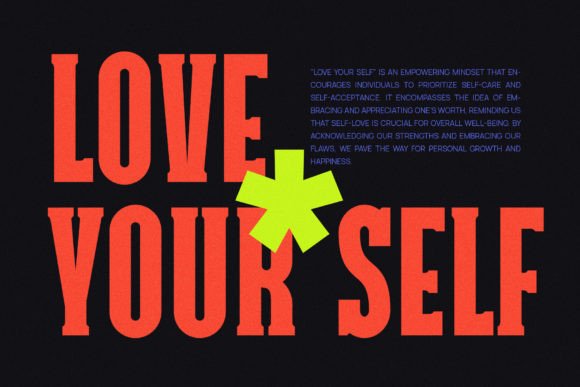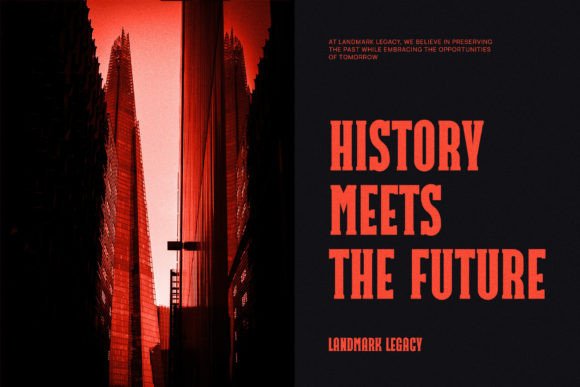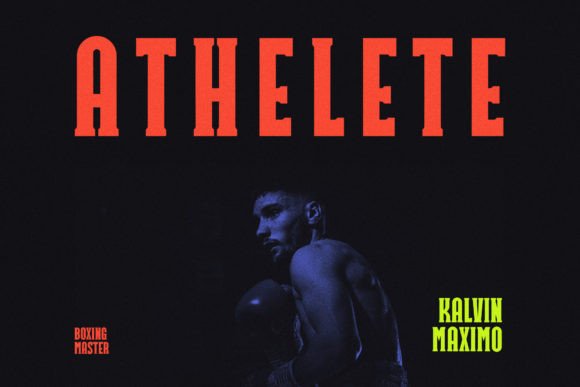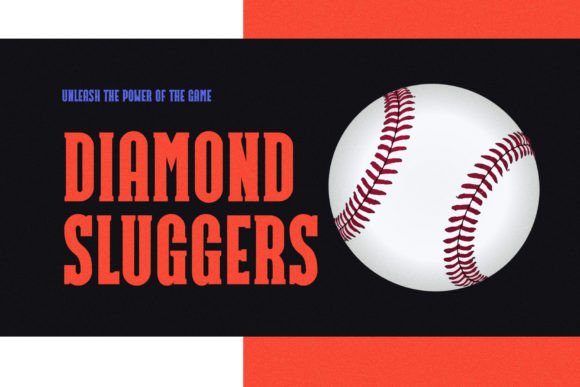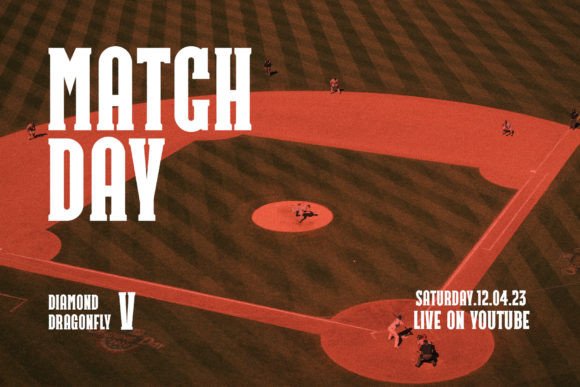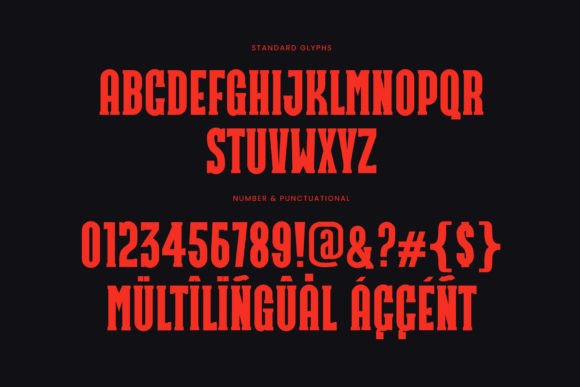
Introduction to Kamely Font
Have you ever been in the middle of a creative project, pouring your heart and soul into it, only to realize that the perfect font is missing? It’s like trying to play a beautiful melody without the right notes. That’s where the Kamely Font comes in – a game-changer for designers who crave that perfect harmony. With its unique blend of inspiration and precise proportions, this font is a treasure trove for creatives.
As a valuable design resource, the Kamely Font offers a transparent background that lets your creative vision shine through. Whether you’re working on a brochure, video, or advertising campaign, this high-quality font is sure to elevate your design to the next level. And the best part? It’s available for free download, making it an accessible addition to any design project.
Key Features of Kamely Font
- High-quality design resource with a transparent background, perfect for creative projects.
- Available in multiple sizes and resolutions, ideal for use in various design applications.
- Unique and creative design makes it an excellent choice for innovative and artistic projects.
- Supports multiple languages, ensuring its versatility and global appeal.
- Perfect for use in digital design, including logos, graphics, and typography for web and print projects.
Honest Review: Kamely Font
I recently came across the Kamely Font, and I must say it’s a great addition to any design resource. This free download has been a game-changer for my creative projects. The high-quality design is perfect for any project that requires a modern touch.
- ✨ Unique and creative design that stands out from the crowd
- ✨ Great for use on a transparent background, giving it a modern look
- ✨ Extremely versatile, making it suitable for a wide range of design projects
Overall, I’m impressed with the Kamely Font. Its modern design and high-quality features make it a valuable resource for any designer. While it may have some limitations, I believe it’s a great addition to any design collection.
The Kamely Font is ideal for creative projects that require a high-quality, modern font. It’s perfect for designing logos, brochures, business cards, and other marketing materials. With its transparent background, it’s also great for designing graphics and illustrations.
To get the most out of the Kamely Font, use it in conjunction with other design resources, such as graphics and illustrations. Experiment with different font sizes, colors, and styles to achieve a unique and eye-catching design. Additionally, use the font on a transparent background to create a modern and sleek look.